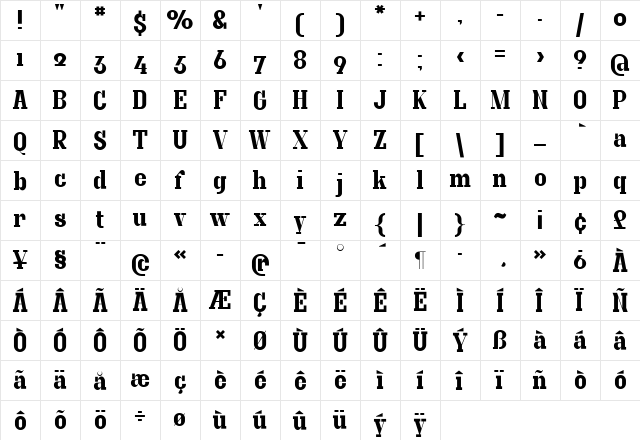
Granite Regular Font Preview
Granite Regular
Design Context for Granite Typeface
Granite offers clean, dependable letterforms without strong stylistic allegiance, making it a practical choice for designers who need flexibility.
Pro Tip: Pair Granite with a font of contrasting weight or personality to build a more expressive typographic hierarchy.